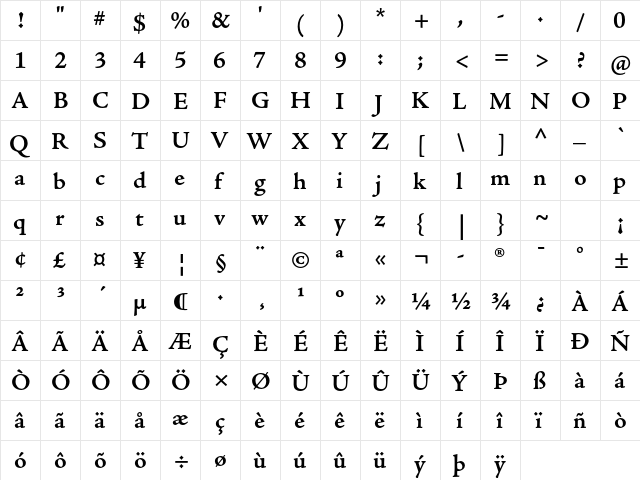
Adobe Jenson Pro Semibold Caption
| Designer | Robert Slimbach |
Design Context for Adobe Jenson Pro Typeface
Adobe Jenson Pro takes a measured approach to typography — its balanced proportions and neutral character make it a reliable workhorse for both digital and print work. The heavy weight commands attention and anchors typographic hierarchies.